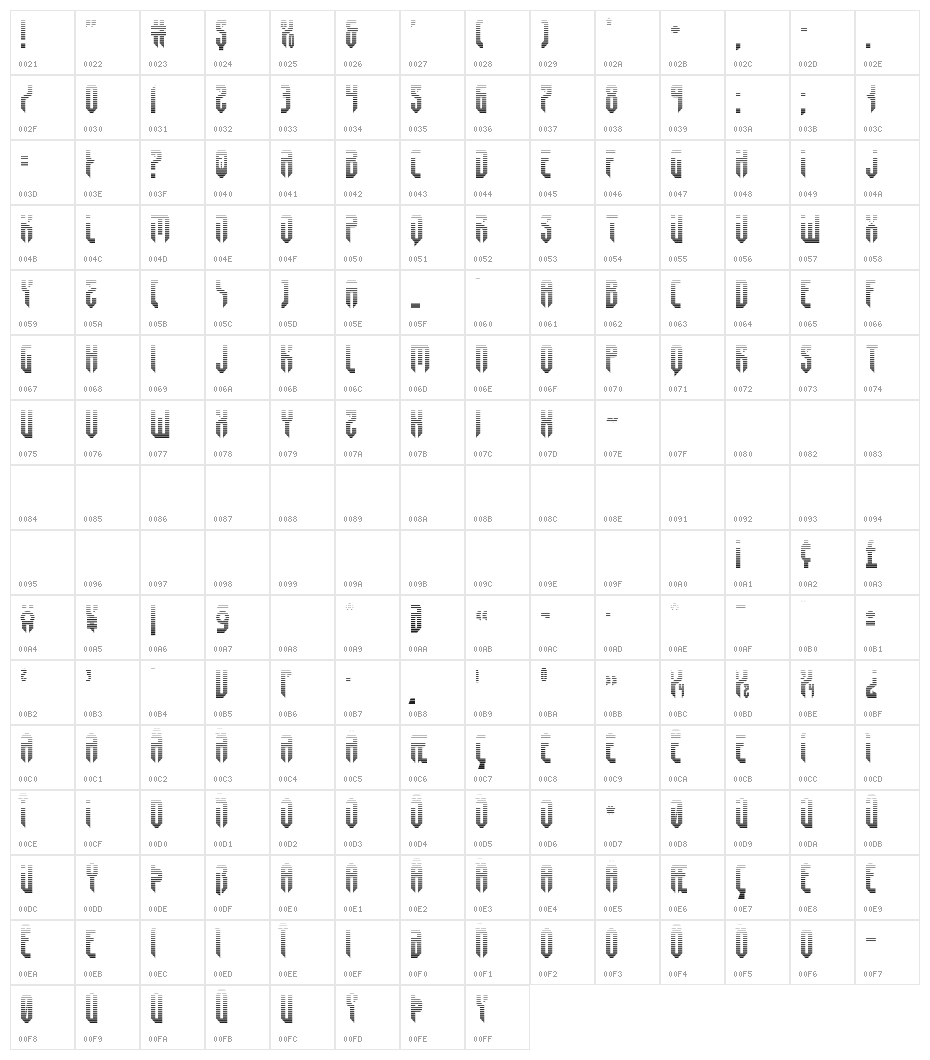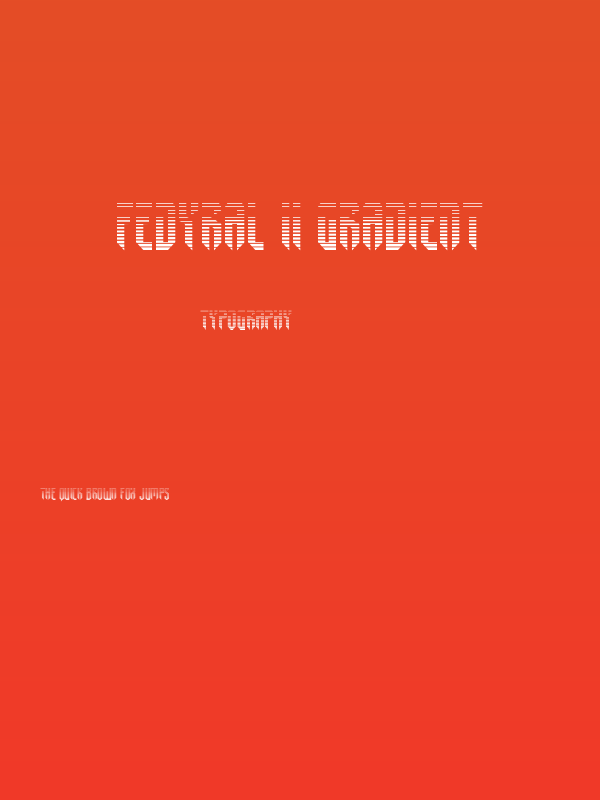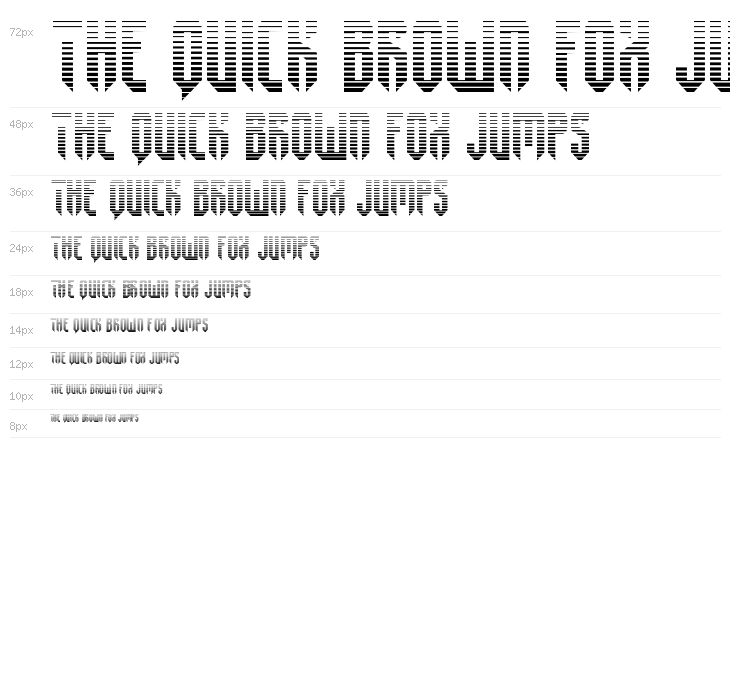
Fedyral II Gradient Font
Fedyral II Gradient Description
This font features a bold, futuristic design with a distinct gradient effect created by horizontal lines. Each character is composed of a series of parallel lines that form the shape of the letter, giving it a unique, digital appearance. The uppercase and lowercase letters maintain a consistent style, with sharp angles and geometric forms. The numbers and special characters follow the same design principles, ensuring uniformity across all elements. This font's striking visual style makes it ideal for projects that require a modern and edgy look.
| Proposed Projects | Ideal for digital art, tech branding, video game titles, and futuristic-themed posters. |